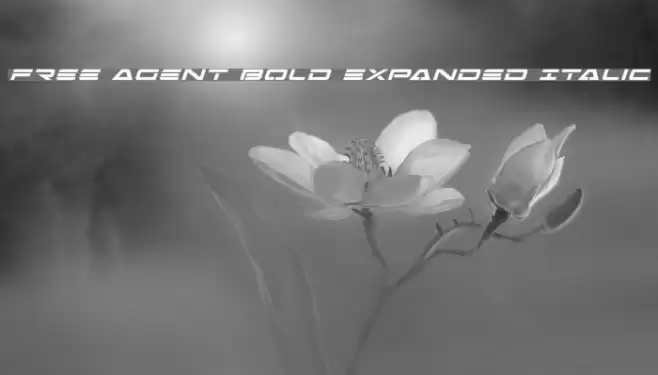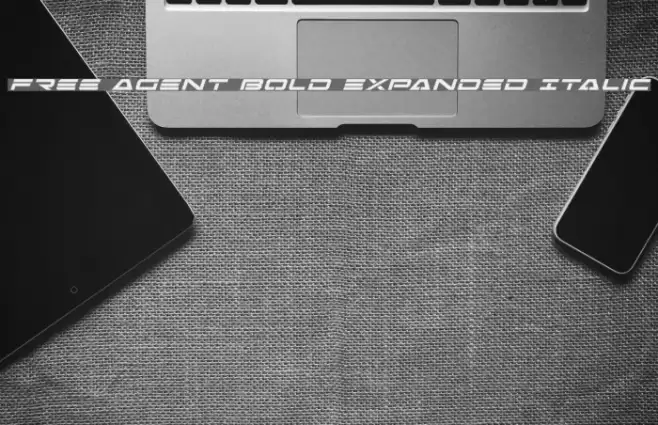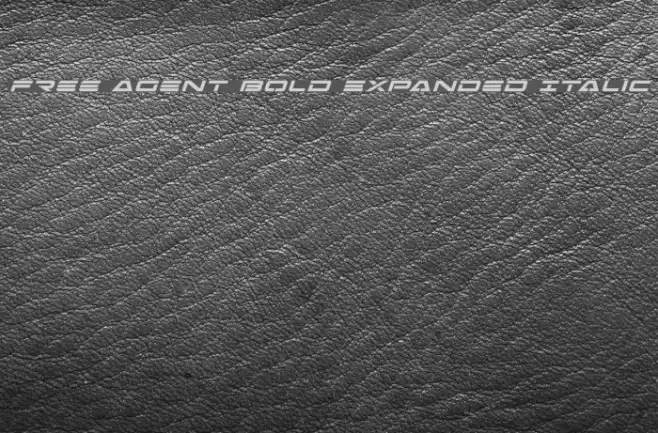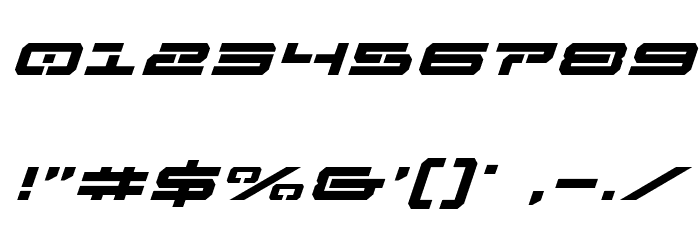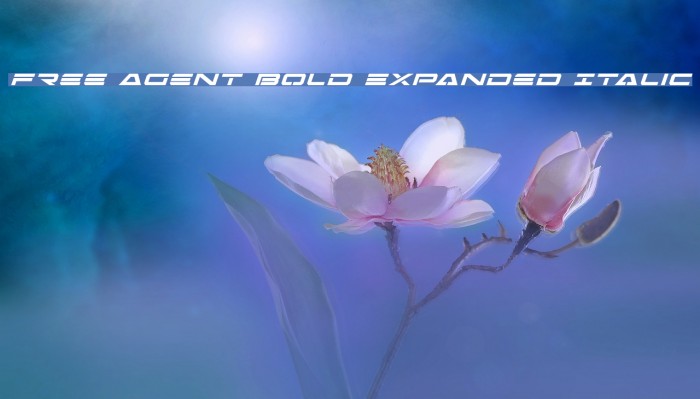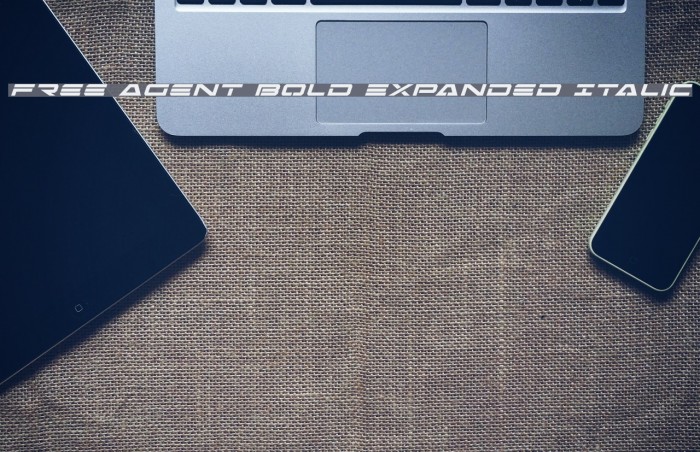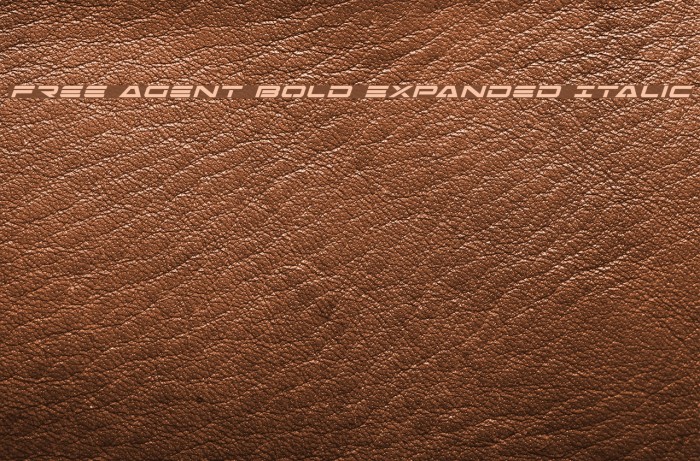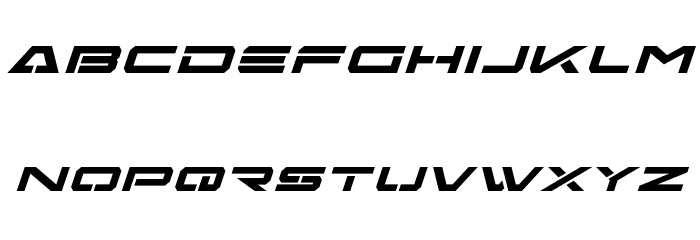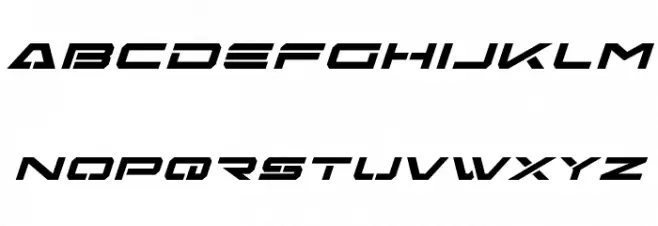
Free Agent Bold Expanded Italic Font
Free Agent Bold Expanded Italic Description
This font features a bold and expanded style with a distinct italic slant, giving it a dynamic and futuristic appearance. The characters are angular and geometric, with sharp edges and a strong presence. The uppercase and lowercase letters maintain a consistent style, with the uppercase being more prominent. The numbers and special characters follow the same bold and angular design, ensuring uniformity across all glyphs. This font's expanded width and italicized form make it stand out, ideal for attention-grabbing designs.
A bold, expanded, and italicized font with a futuristic and angular design from Uncategorized fonts.
- Proposed Projects: Ideal for sci-fi themed projects, video game titles, posters, and branding that requires a modern and bold statement.
- Overall Style: Futuristic